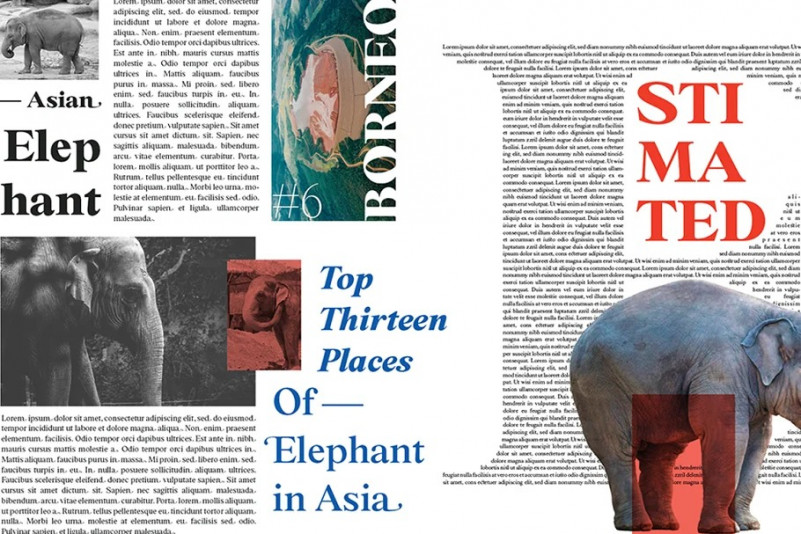
BD Megalona Font
BD Megalona Serif Font
This is an upper and lowercase serif font with nicely balanced curves. It’s designed and shared by Balibilly Design. This typeface is created by a careful approach, persistence, and full of totality. Taste, shapes adjustment, and experimental are 3 words for this typeface. She was born big and charming, feature an extended charset of over 1800 glyphs, covering 219 languages using Latin, Cyrillic (basic to extended), and Greek alphabets. Included advanced open type features like stylistic alternates, terminal form, swash, discretionary ligatures, ordinals, small caps, positional numbers, fractions, and case sensitive forms.
BD Megalona provides a range of choices that will give luxury vibes in symmetrical layouts with selective deviations, and work well in a stylish look for your typographic project. This is a complete package of problem solvers perfectly suited for body text and high-impact headlines. Advance open-type features definitely stunning on logos, branding, magazines, website, etc.